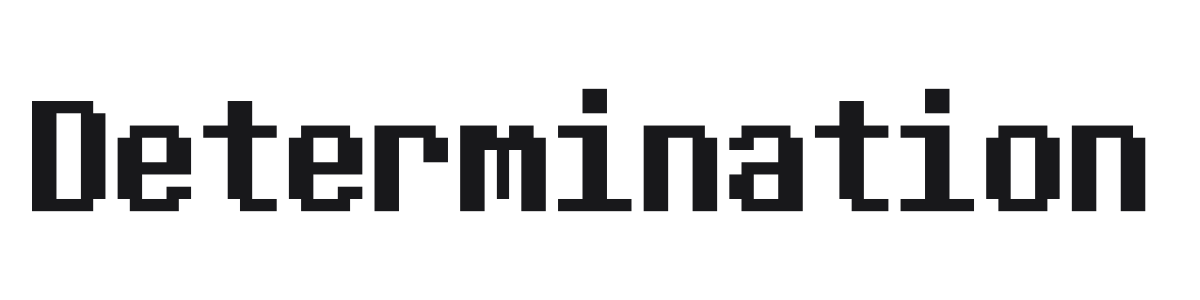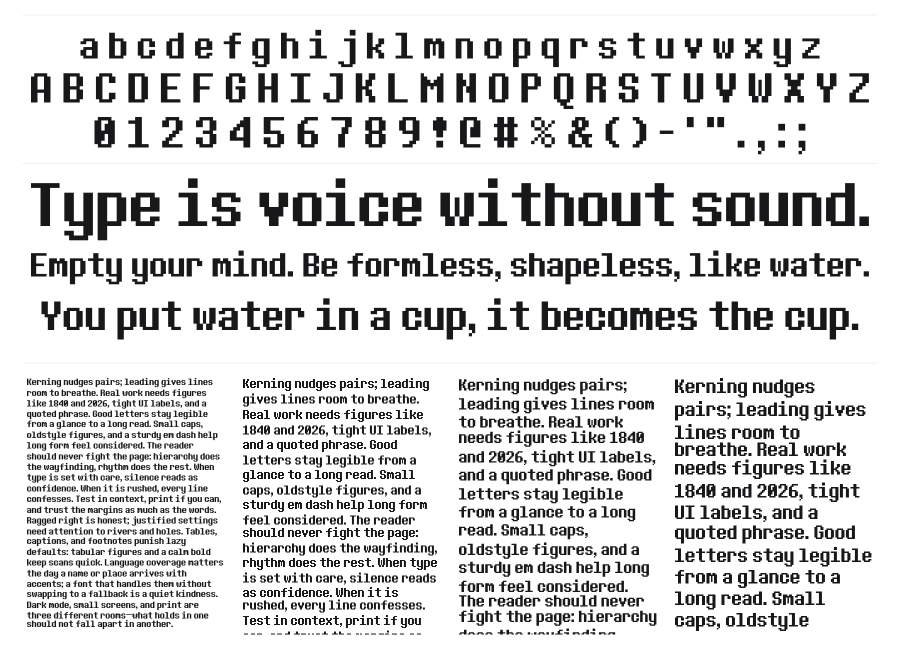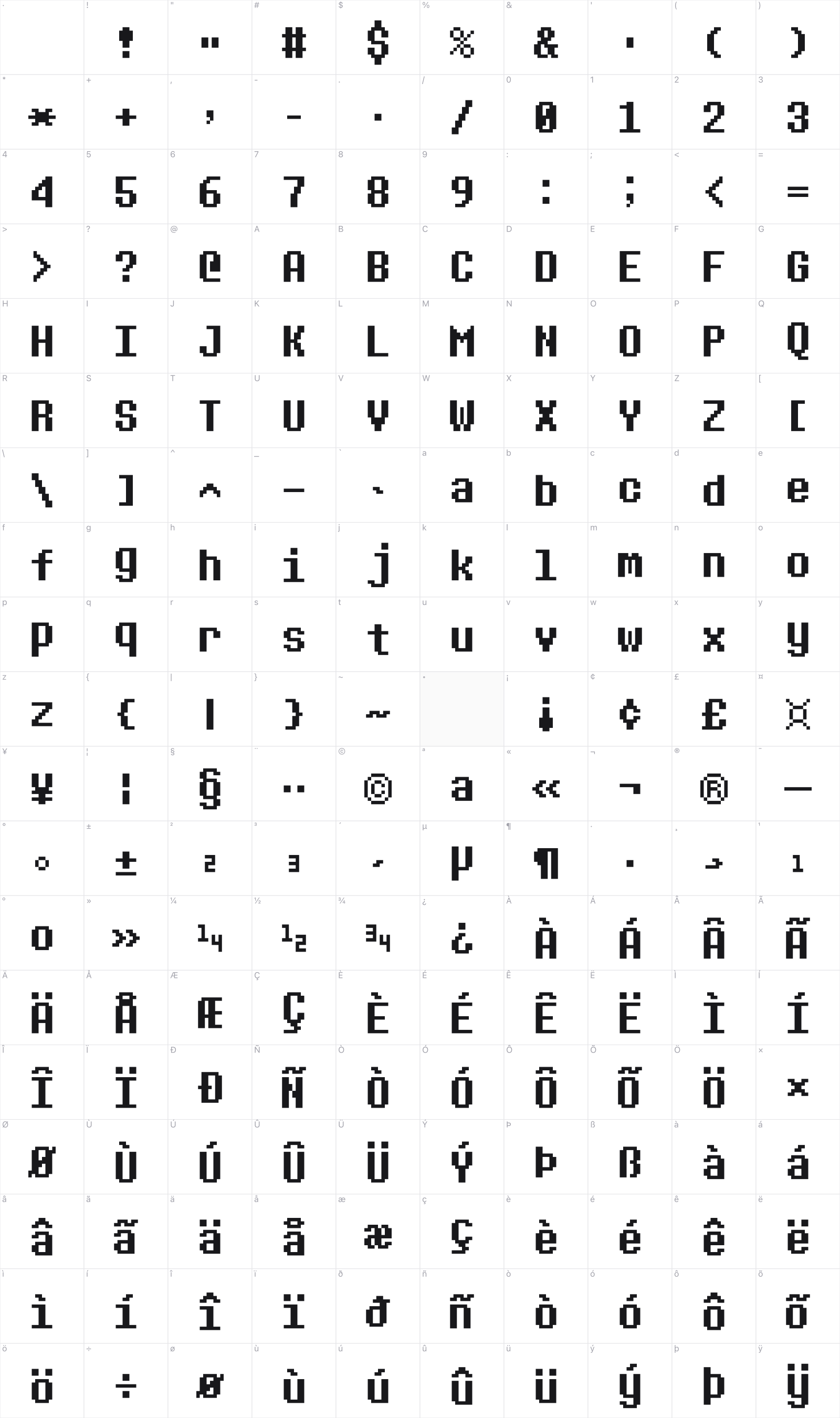
Determination
Determination is a bold bitmap font built from square pixel blocks in the style of classic 8-bit video game text. Every character is locked to a strict grid with chunky uniform strokes and no stroke contrast whatsoever. It reads instantly as retro gaming and works best at display sizes where the pixel structure stays crisp.